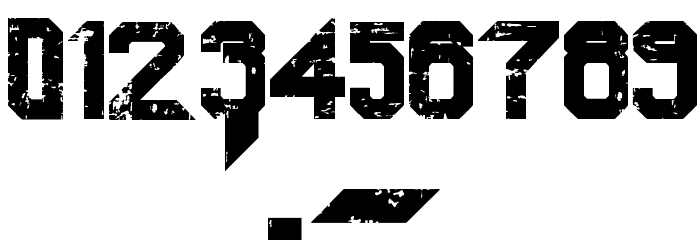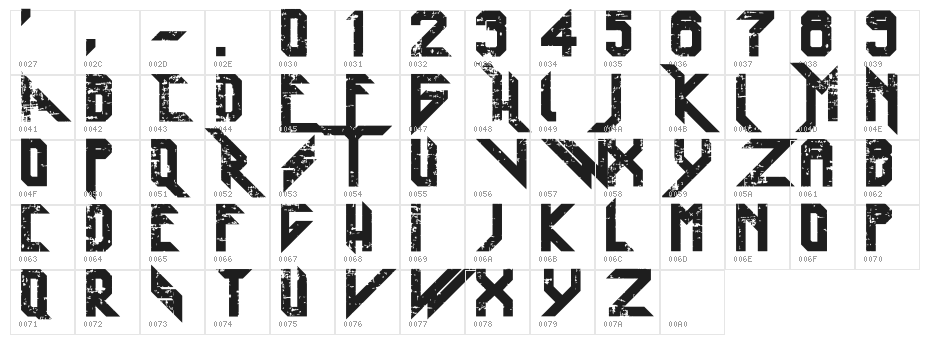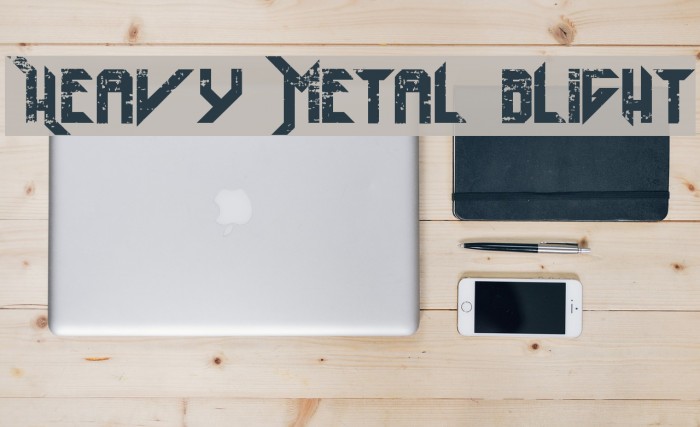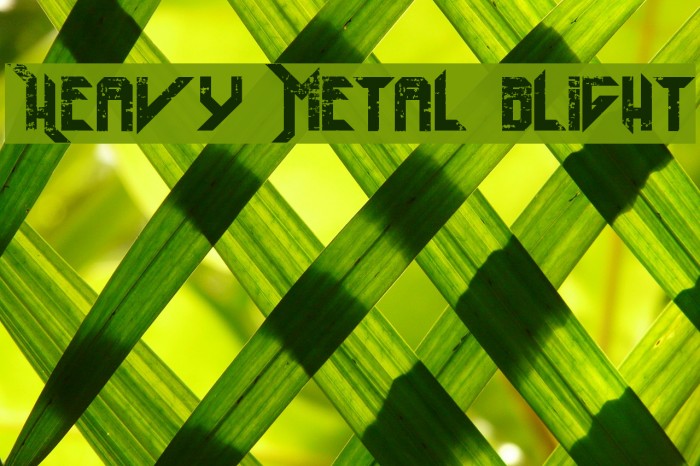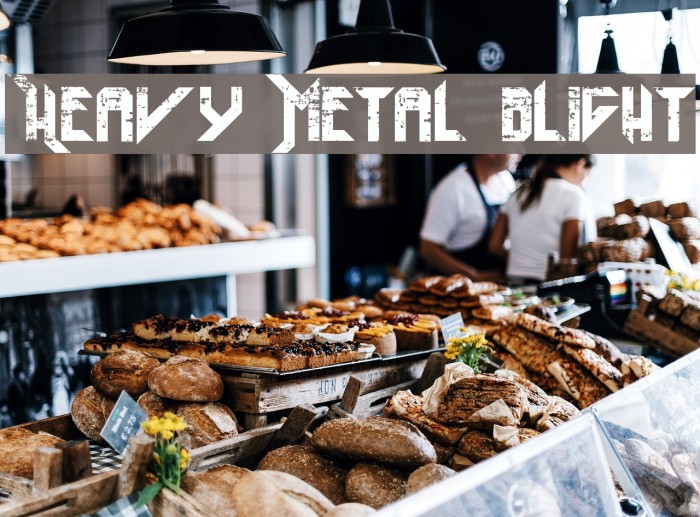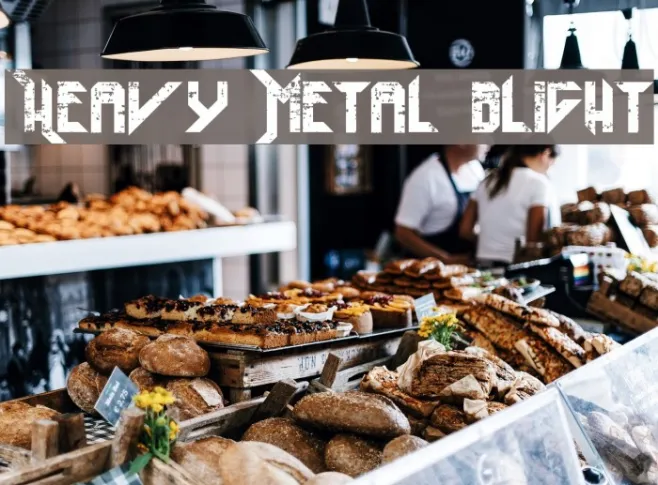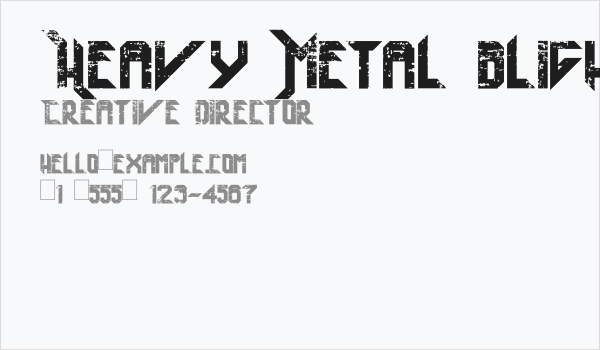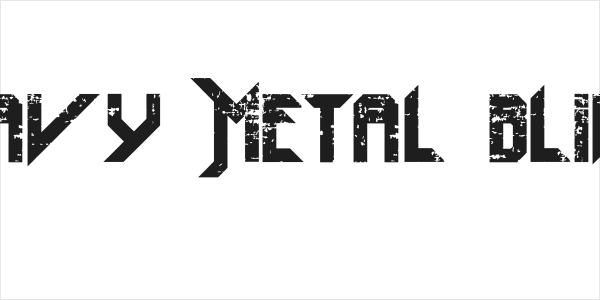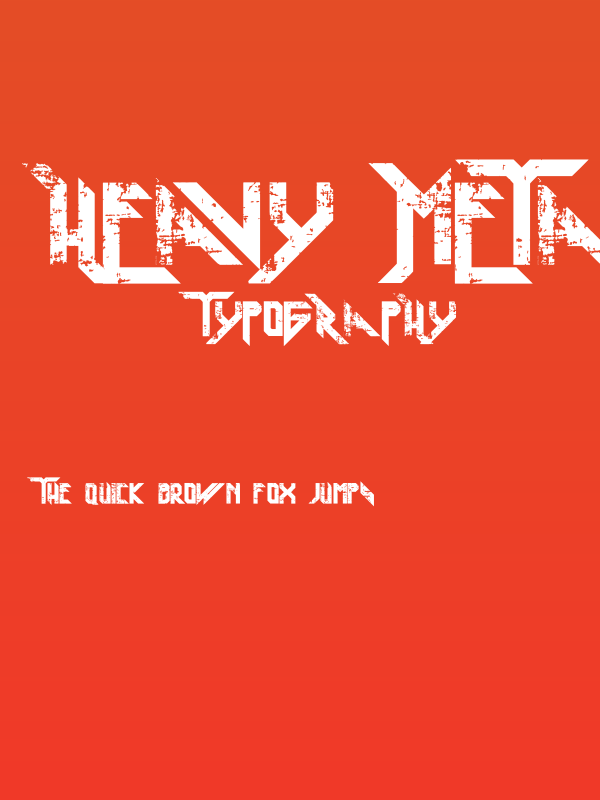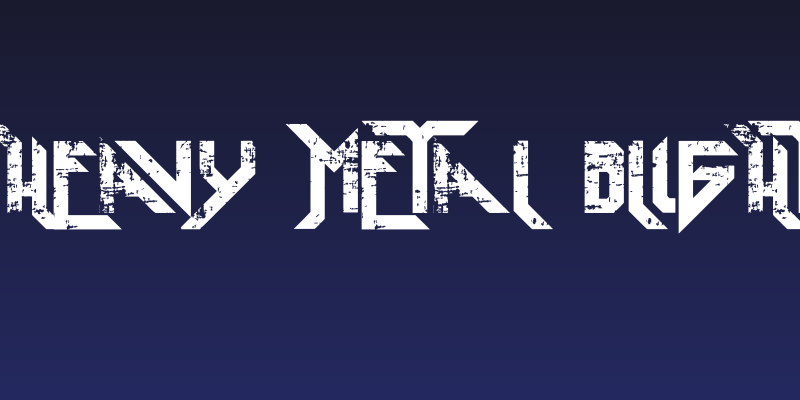
Heavy Metal Blight Font
Heavy Metal Blight Description
This font exudes a rugged, distressed aesthetic reminiscent of heavy metal music and industrial design. The characters are bold and angular, featuring sharp edges and a weathered texture that gives them a gritty, worn appearance. The uppercase letters are particularly striking, with a geometric style that emphasizes their aggressive and dynamic nature. The numbers and special characters maintain this theme, providing a cohesive look across all elements. This font is ideal for projects that require a strong, impactful visual presence.
| Proposed Projects | Album covers, event posters, merchandise for rock bands, video game titles, and edgy branding materials. |